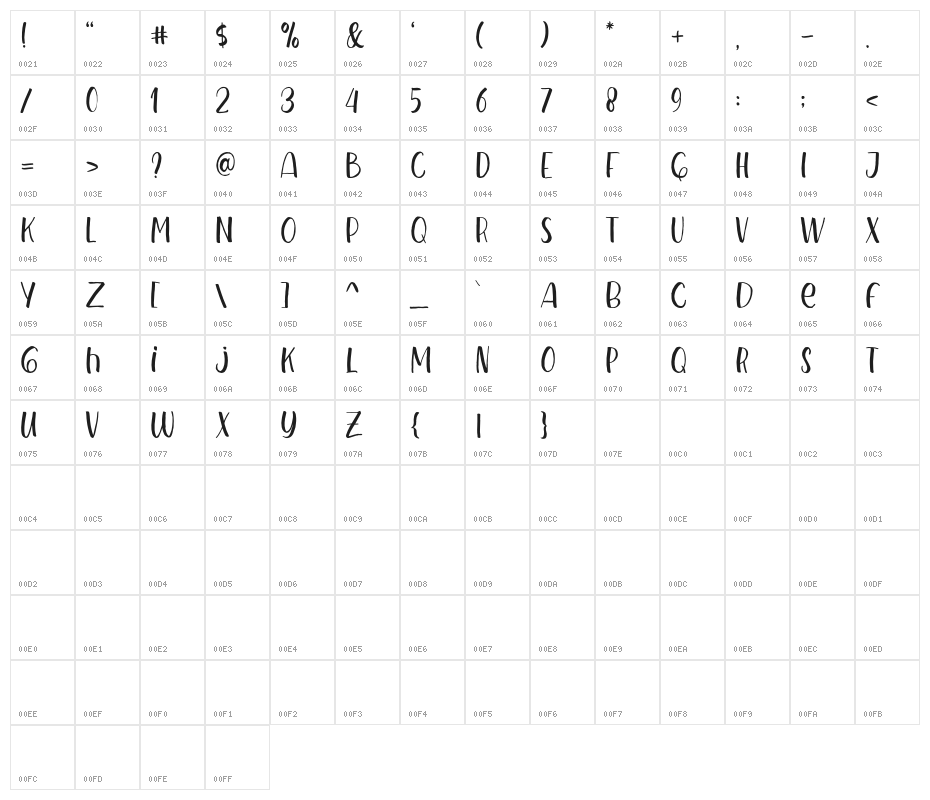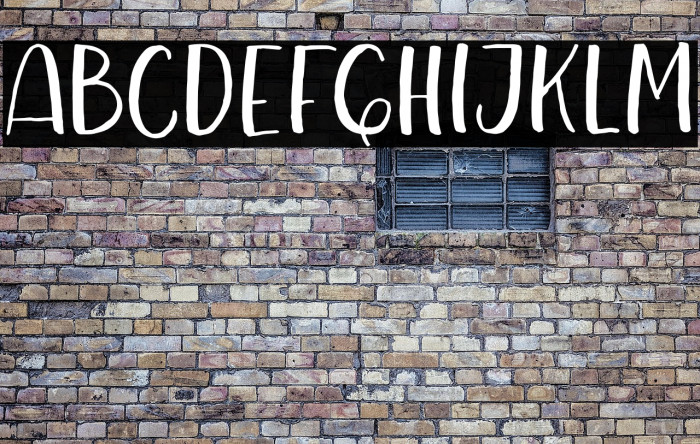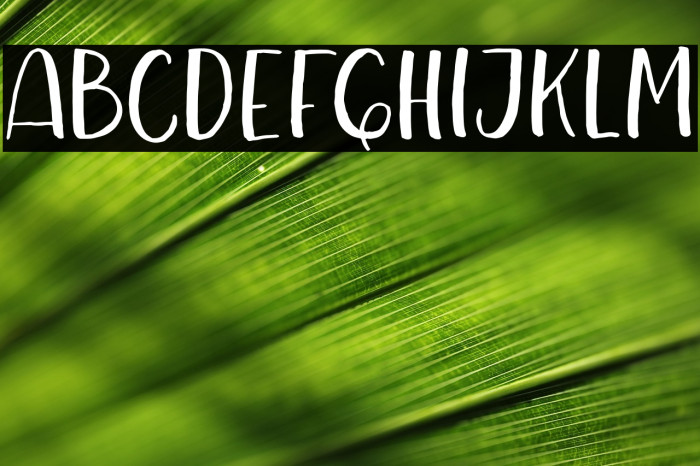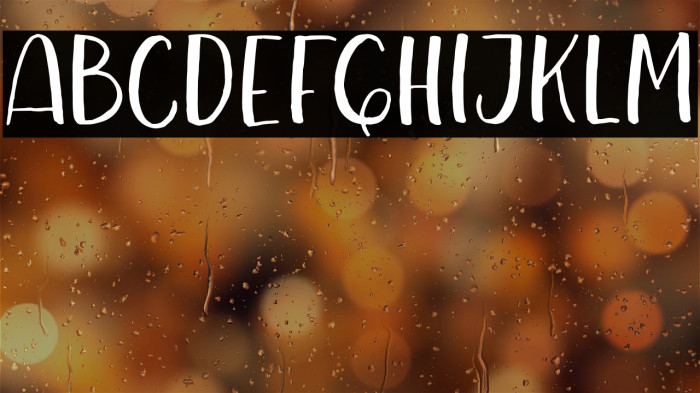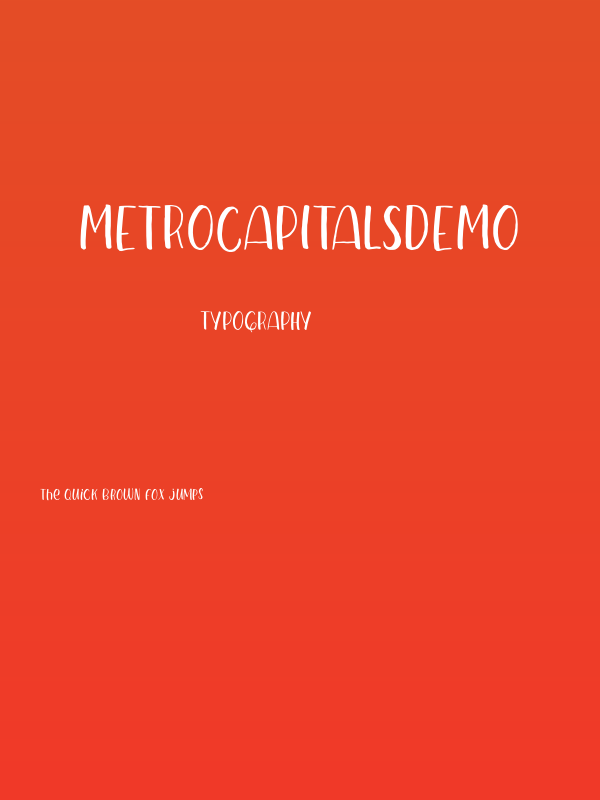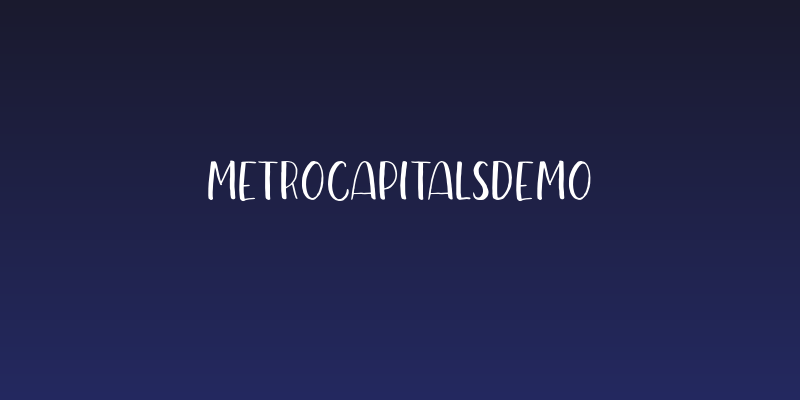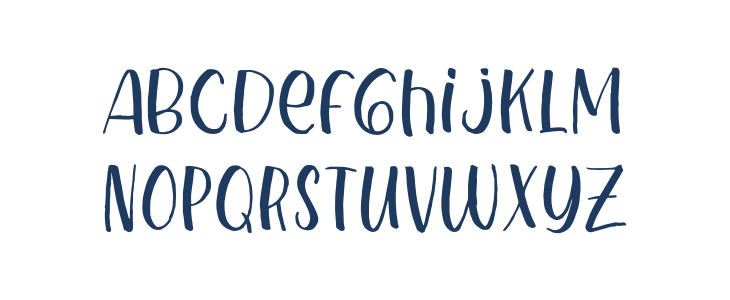
MetroCapitalsDEMO Font
MetroCapitalsDEMO Description
This font features a playful and energetic handwritten style, characterized by its bold and slightly irregular strokes. The letters have a casual, informal appearance, with a mix of thick and thin lines that give it a dynamic and lively feel. The uppercase and lowercase letters are distinct, with a noticeable slant that adds to the font's whimsical charm. The numbers and special characters maintain the same lively aesthetic, making the font versatile for various creative projects. Its unique style makes it stand out, perfect for designs that require a personal touch.
| Proposed Projects | Ideal for greeting cards, posters, branding, and social media graphics. |